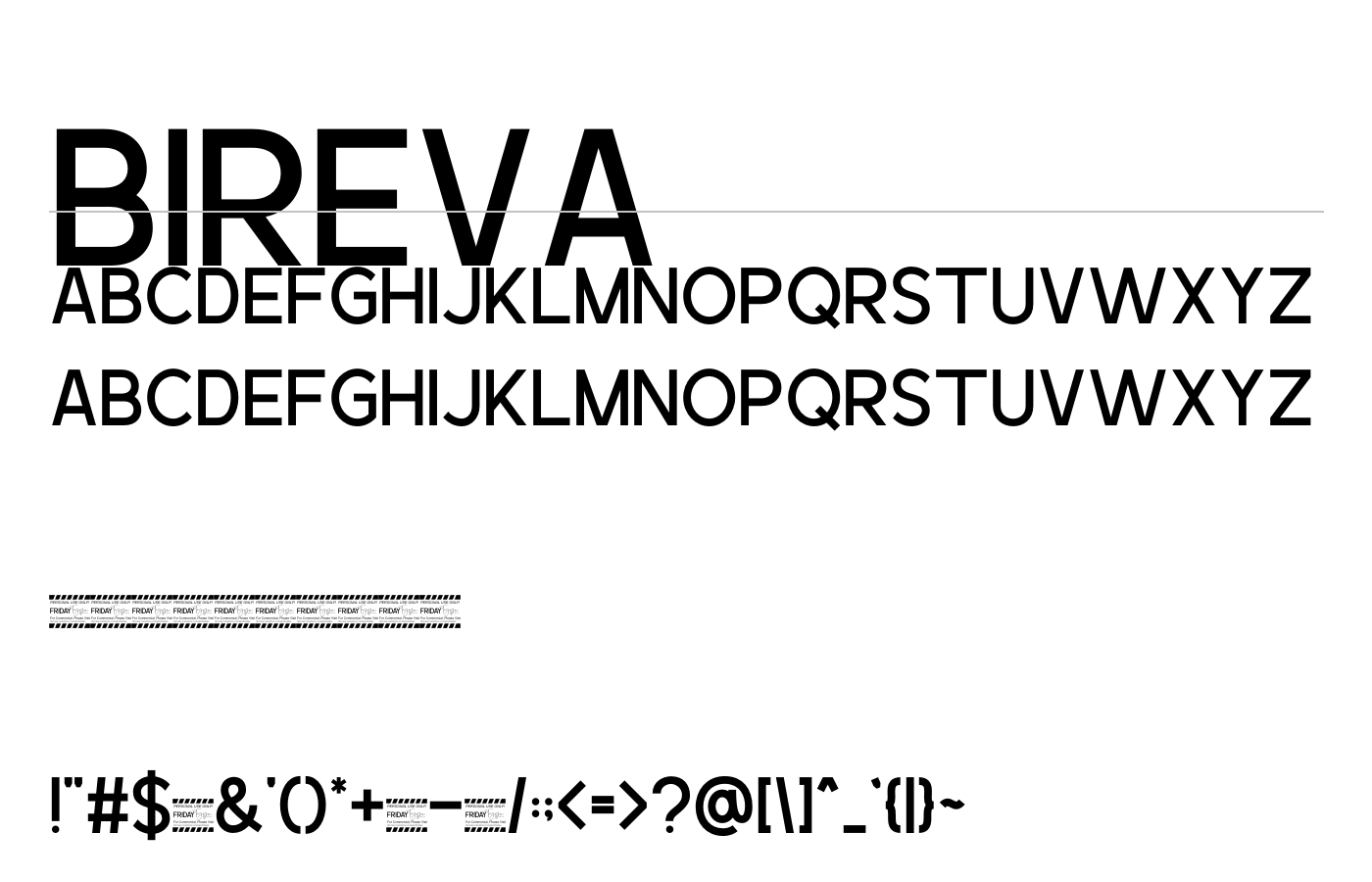
BIREVA is a clean, modern sans serif font with a regular weight and a slightly condensed width that gives it a sleek and professional look. Its geometric letterforms and consistent stroke contrast make it highly legible and versatile, ideal for both headlines and body text. This font works well in corporate branding, editorial design, and digital interfaces where a contemporary and straightforward style is desired.